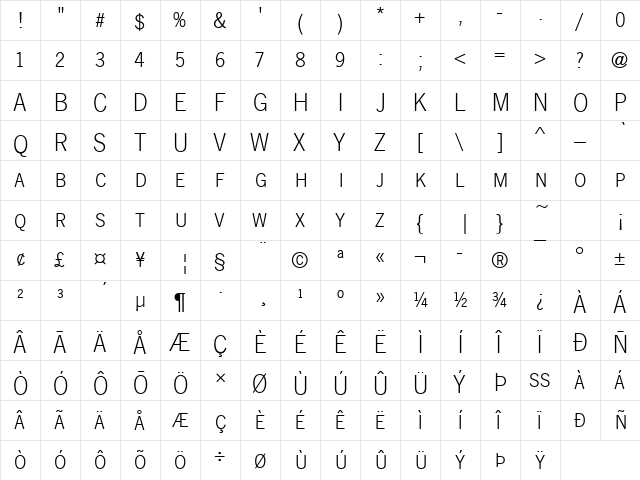
NewsGotDCDLig Regular
Design Context for NewsGotDCDLig Typeface
NewsGotDCDLig offers clean, dependable letterforms without strong stylistic allegiance, making it a practical choice for designers who need flexibility.